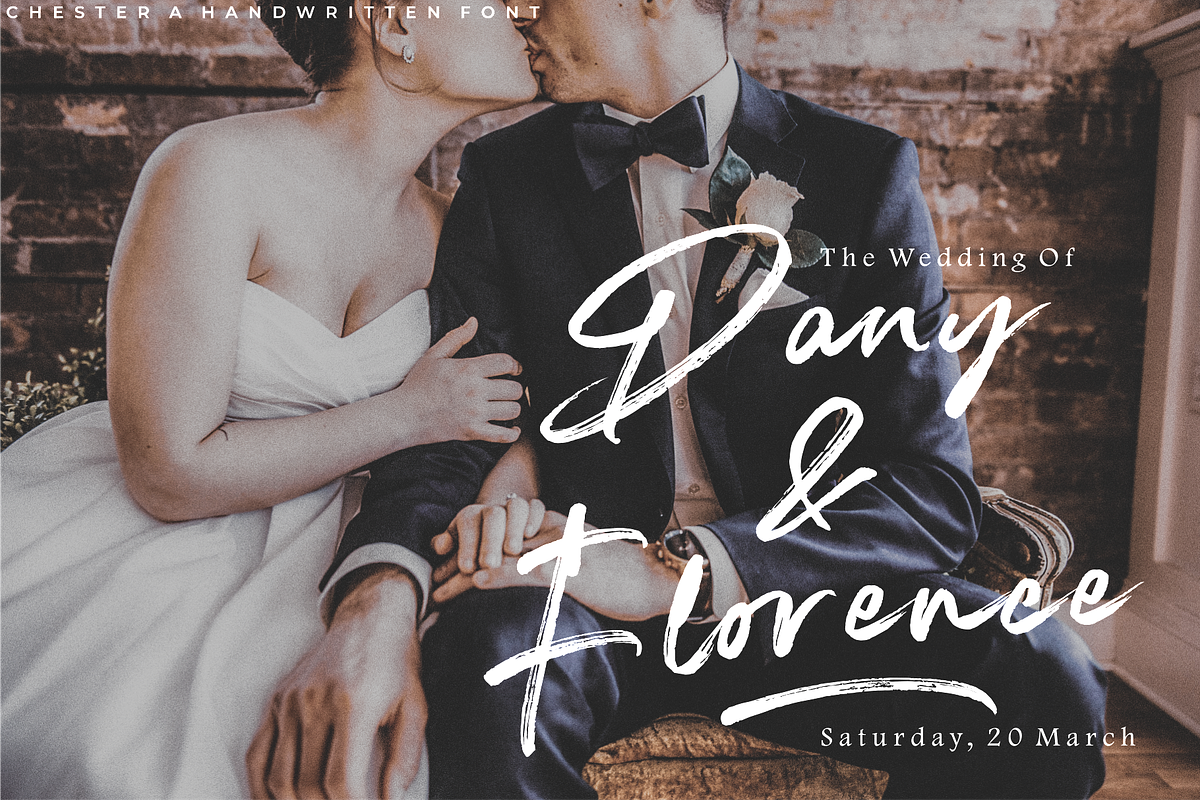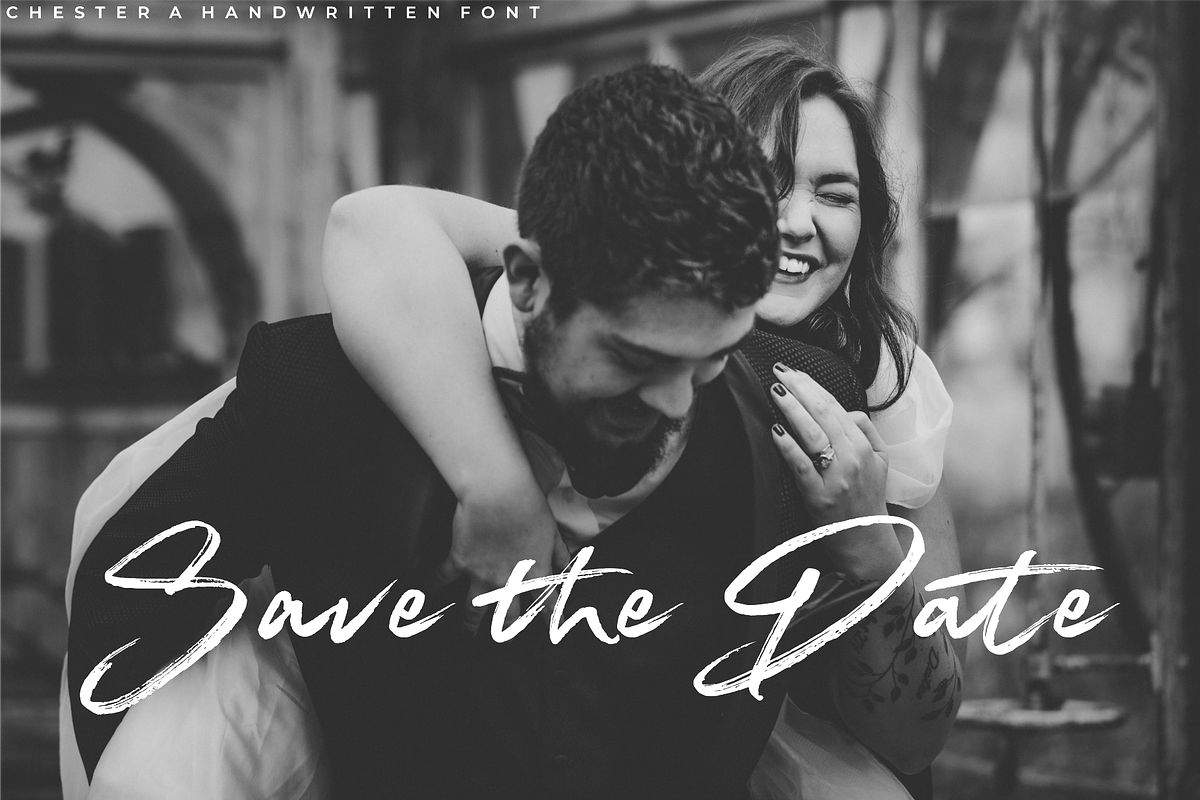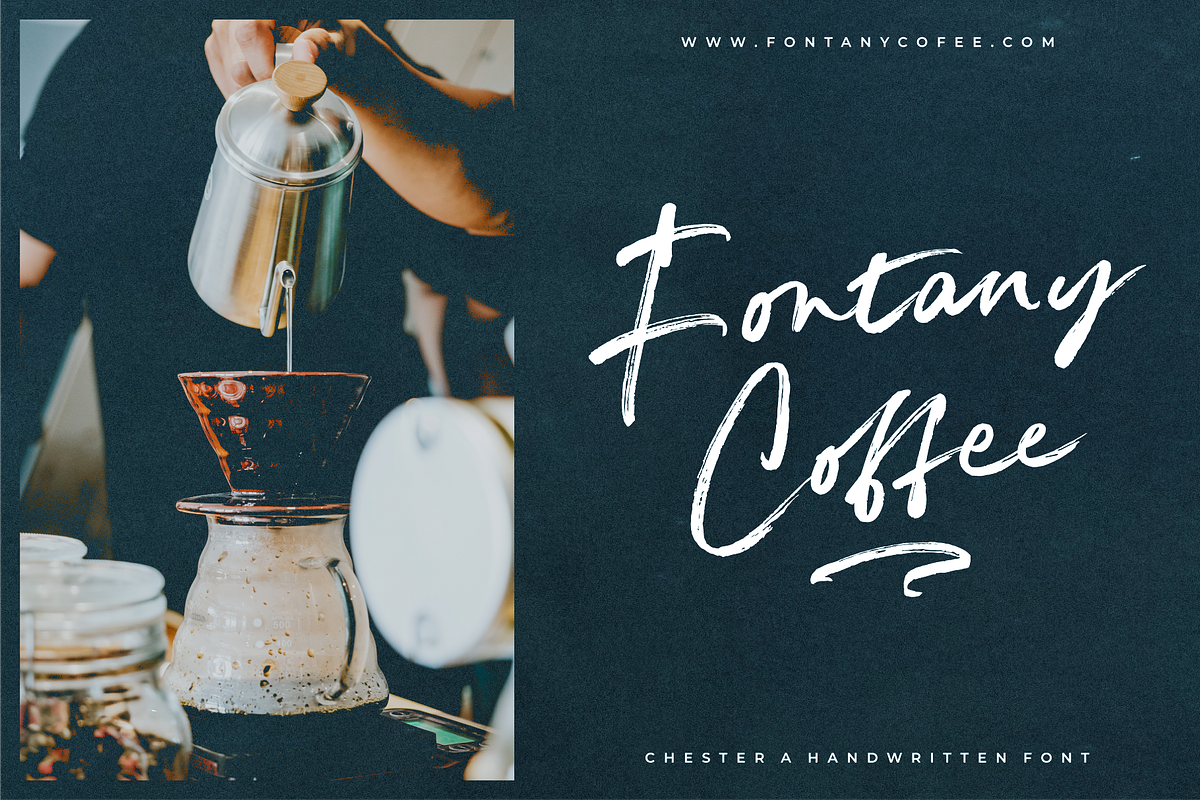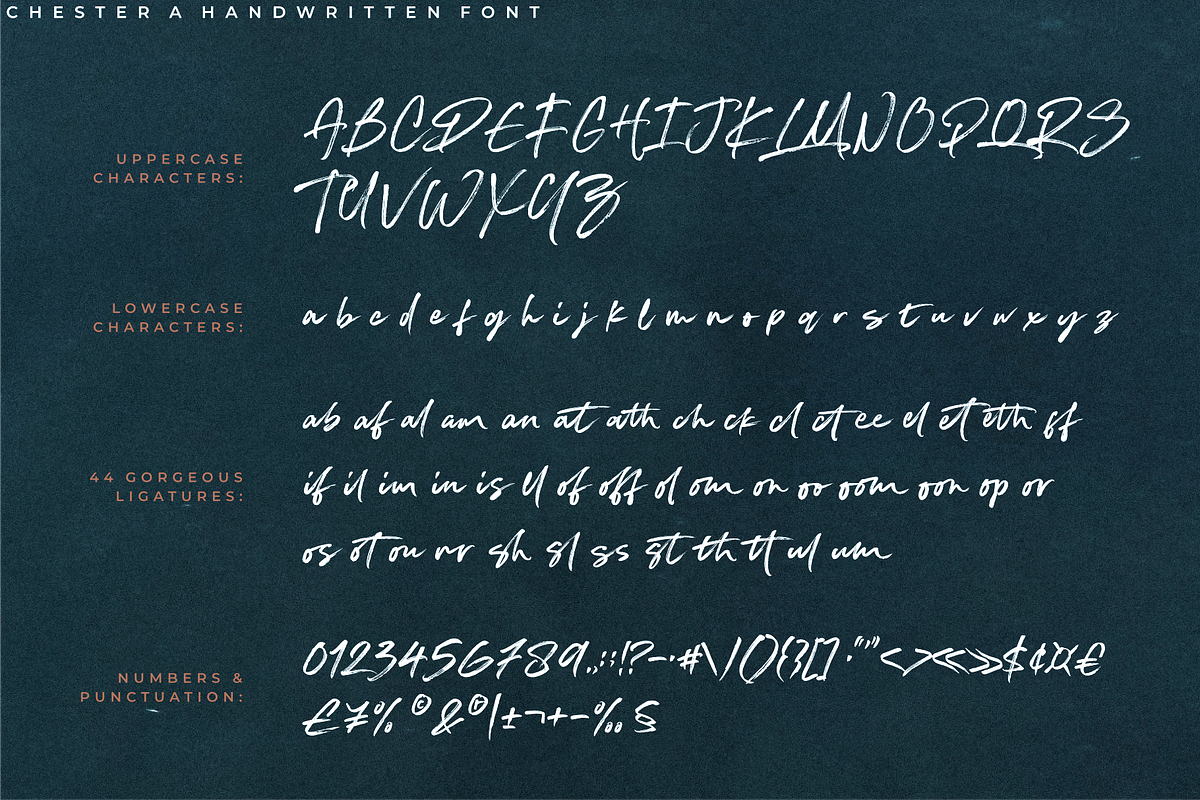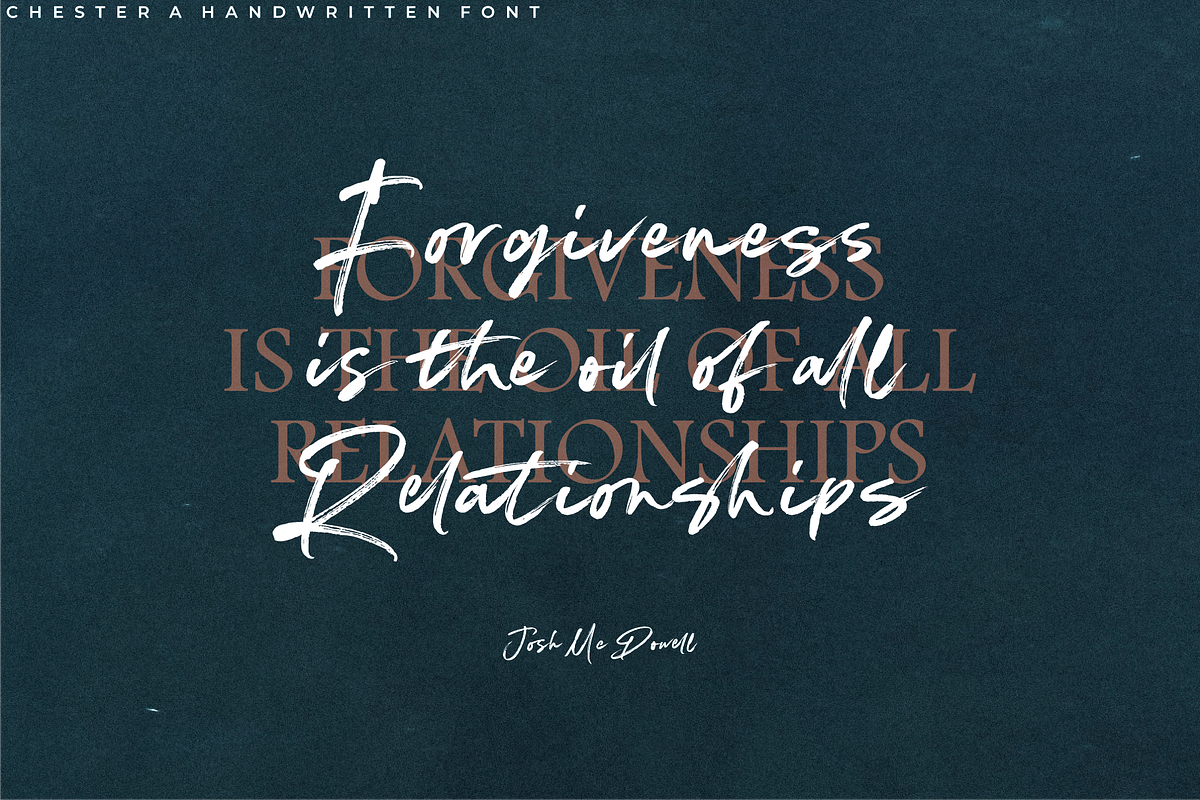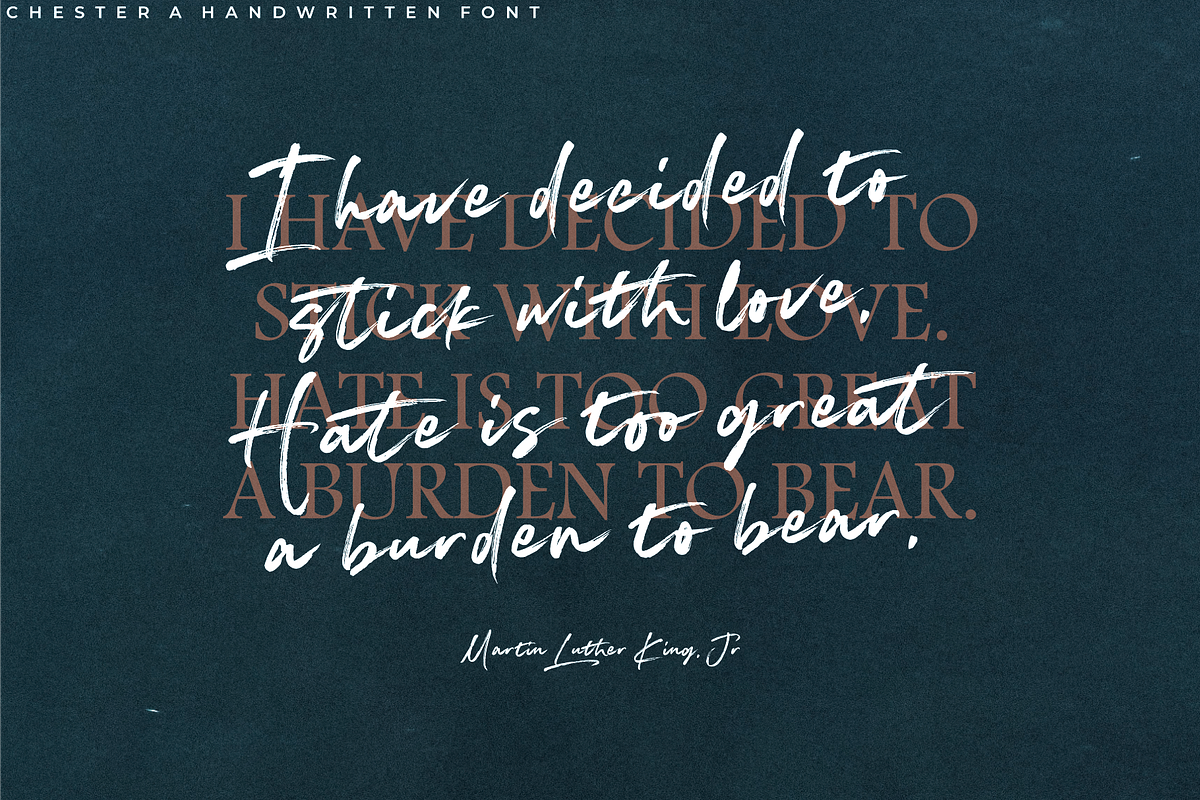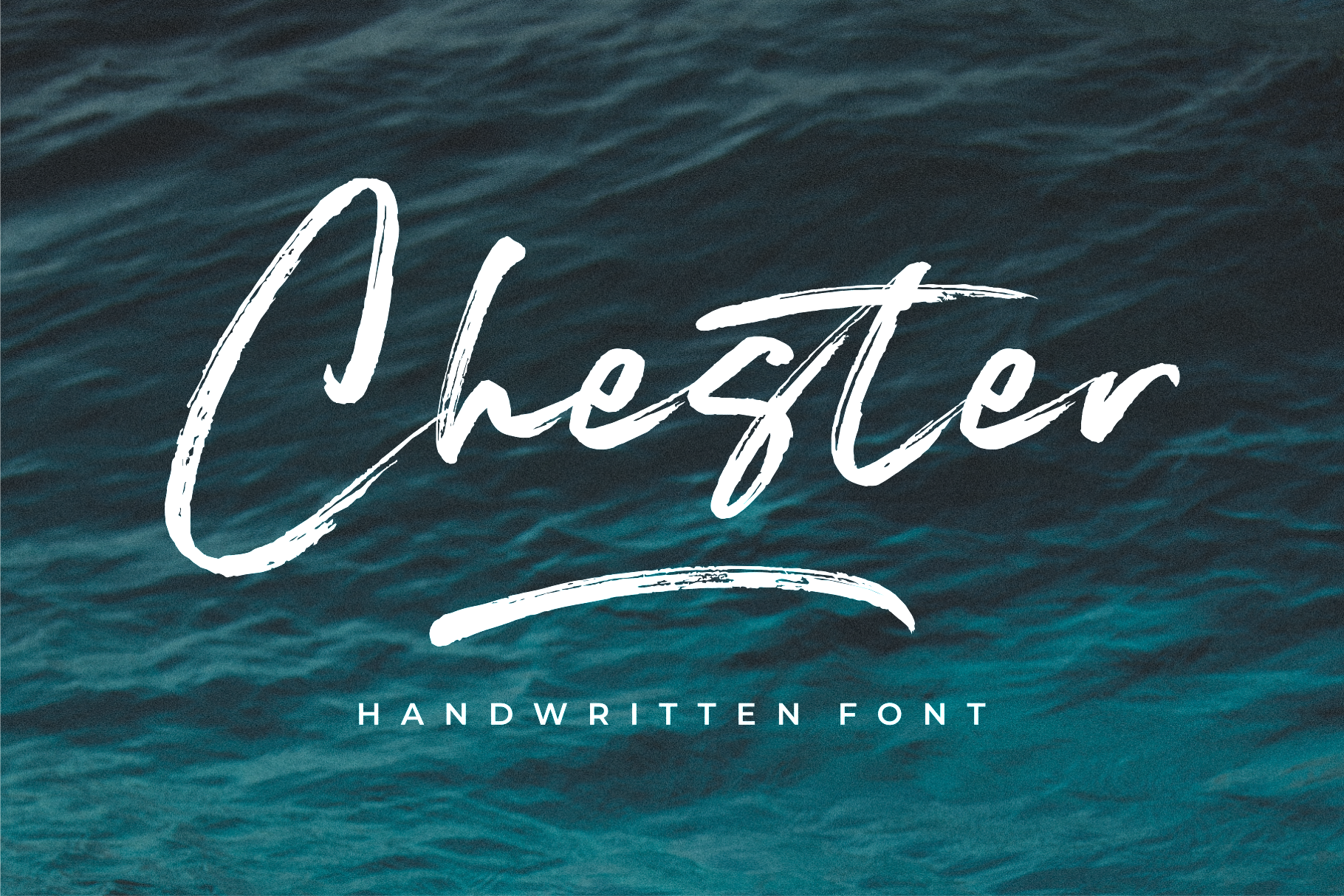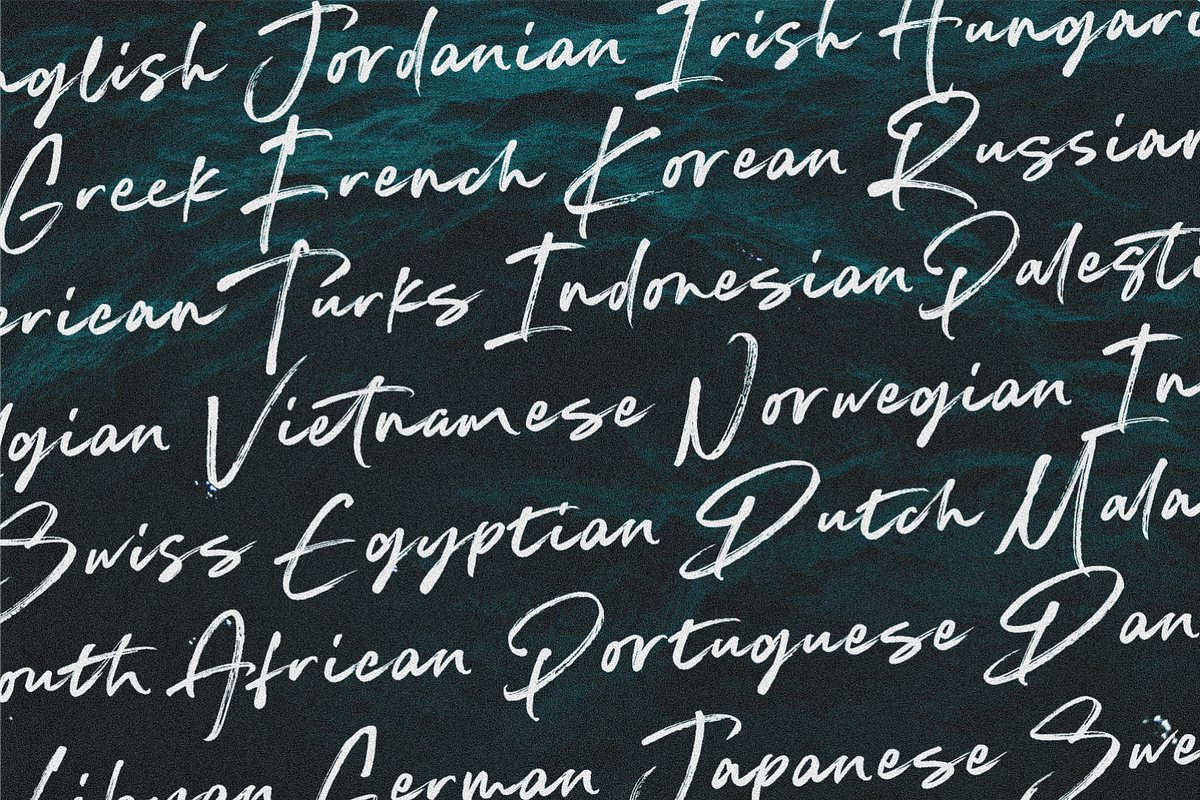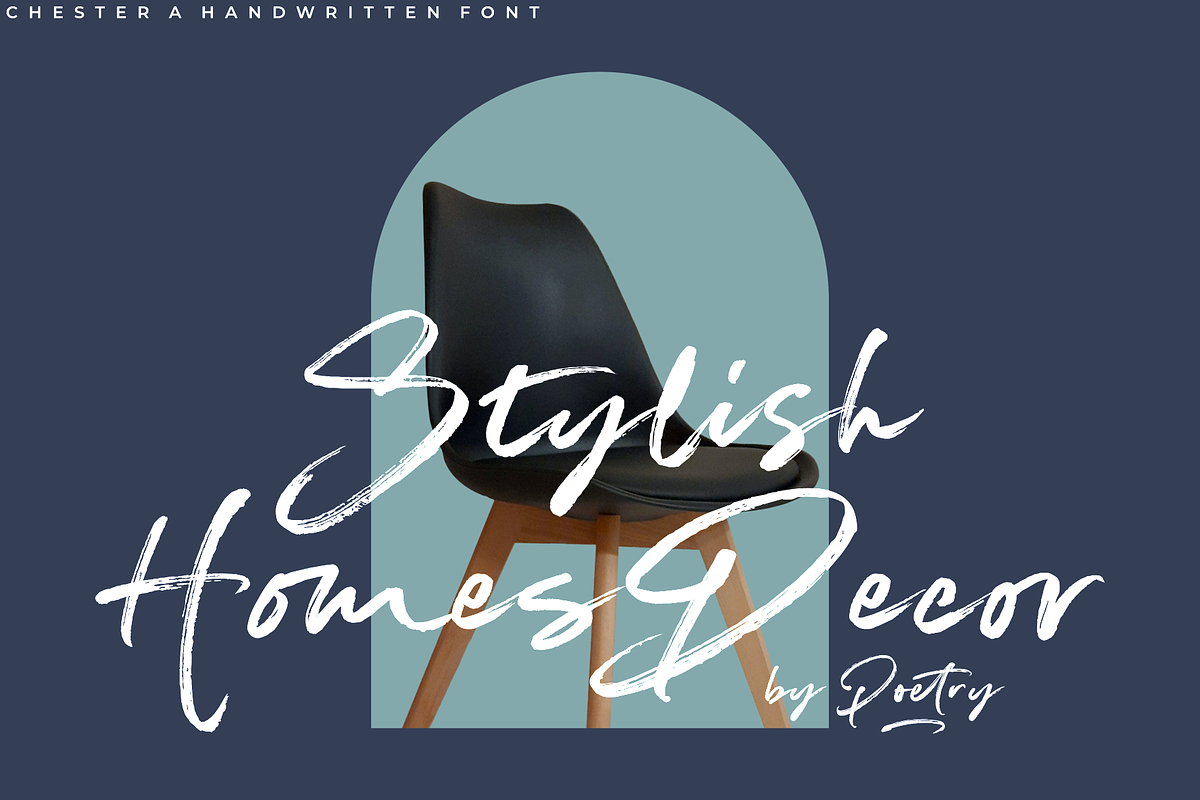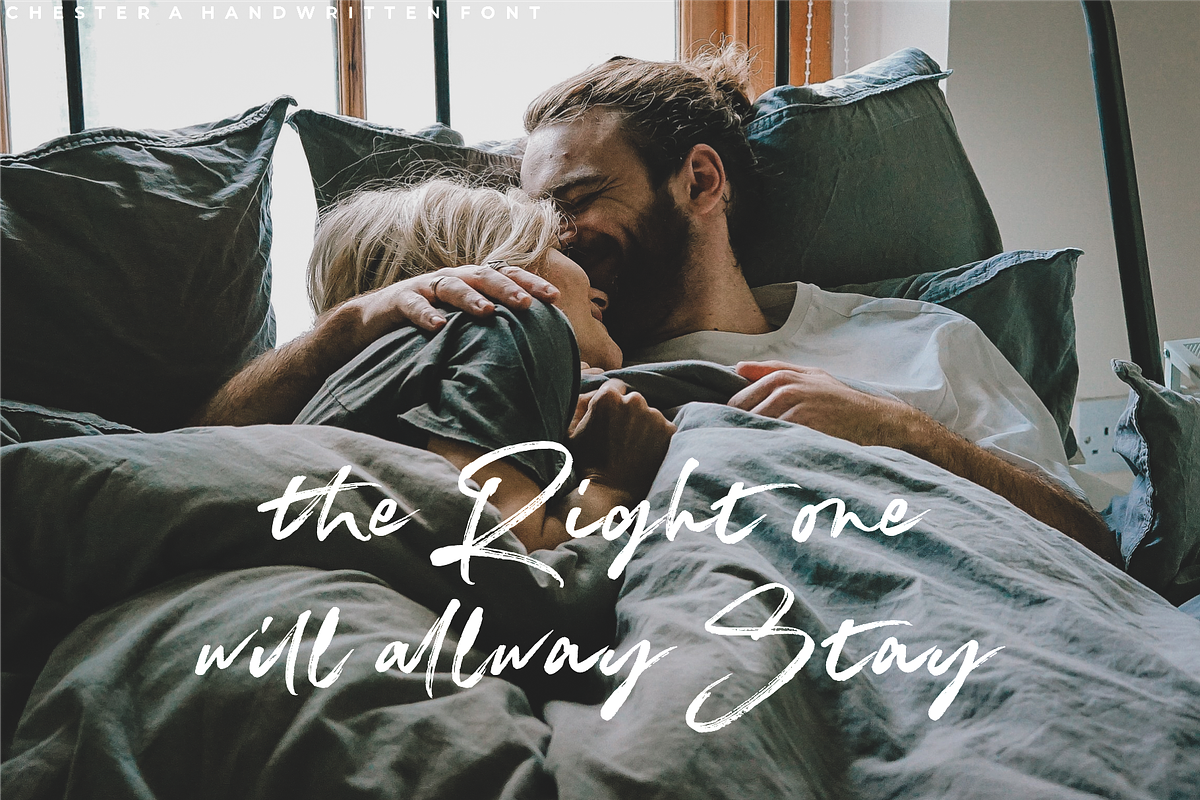
Chester – Handwritten Brush Font
Just like a beautiful handwritten brush font, Chester is the perfect choice for your next personal branding project or any nostalgic script design! This brush font is trendy and classic, depending on how you use it. As a wordmark or text overlay to any background image - Chester will create the perfect finish to any design.
In addition to the full set of upper & lower case characters, Chester also includes 44 ligatures (double letters) - which combined offers you a huge range of customisability and layout options and allows you to produce a very organic and natural handwritten flow to your text.